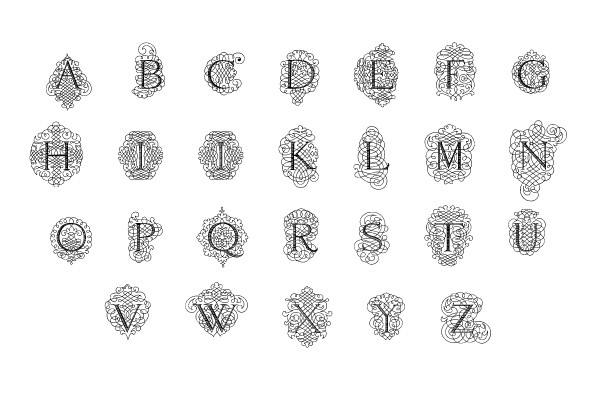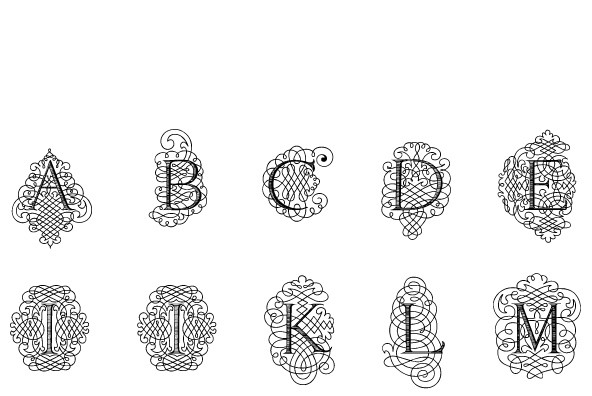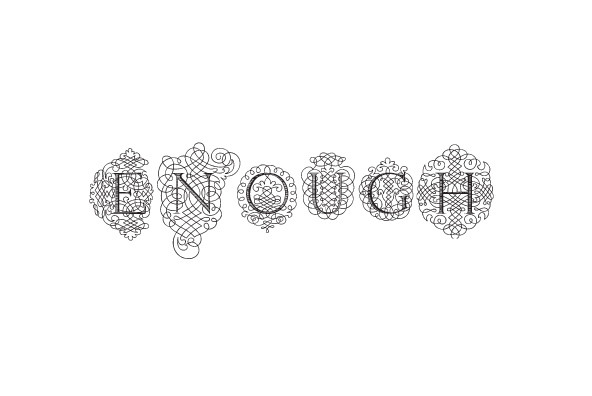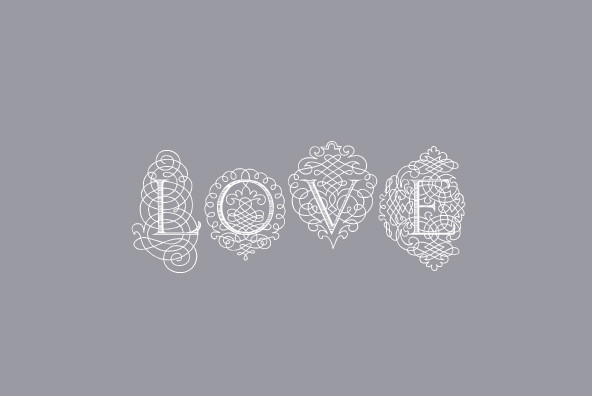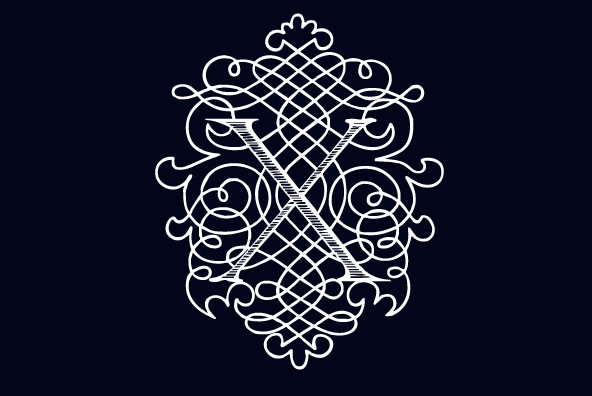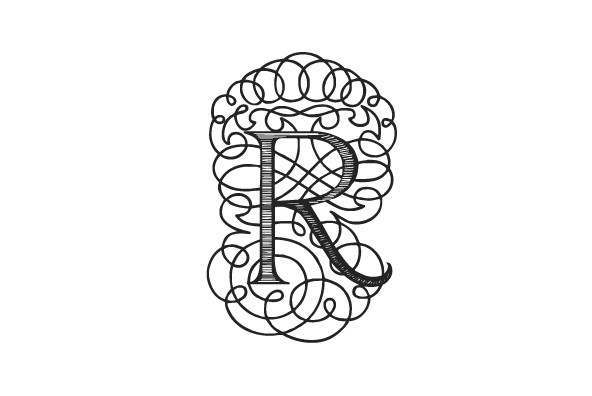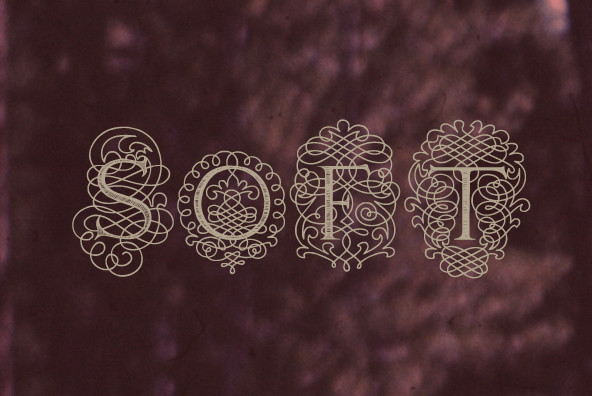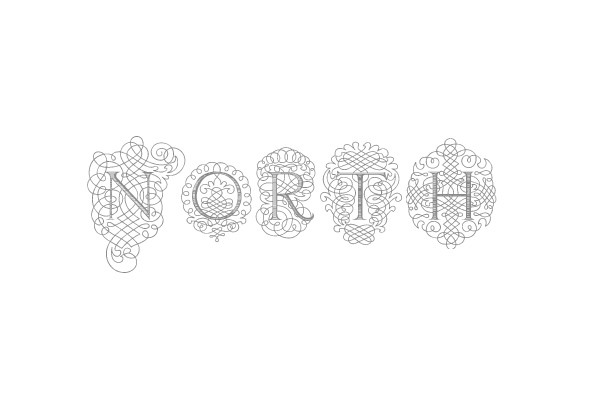
Calligraphia Latina Soft
A classic font design remastered by the type foundry Intellecta Design. Distressed and antique, use this font in display purposes for a stylized type design. Contains a limited amount of letter designs, works best when used for headers and set manually.